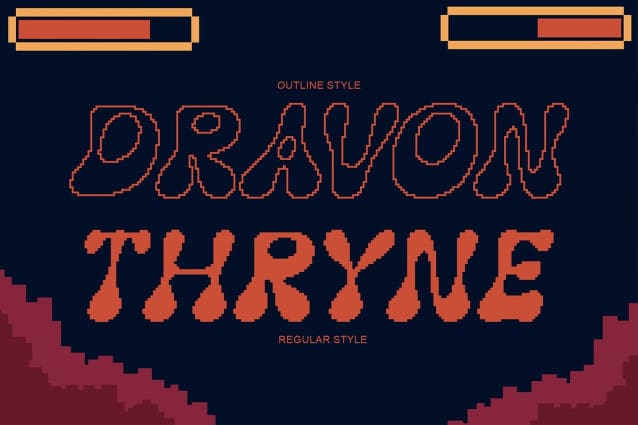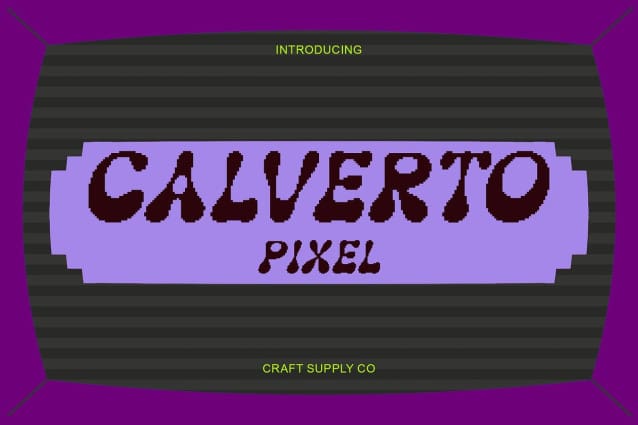
Calverto Pixel Font
Calverto Pixel Font – Pixel-Inspired Retro Display Font: Where Retro Tech Meets Creative Warmth.Blocky 90s Digital Shapes This is a retro display font built with bold, blocky letterforms that echo the digital style of the 90s. Its geometric construction captures the essence of old-school arcade screens and early computer graphics, making it a perfect choice for designs that want to embrace nostalgic energy.
Pixel Detailing for Modern Flair What makes this font unique is its pixel texture that blends past and present. While its form recalls retro aesthetics, the pixel effect adds a contemporary edge. This combination creates a versatile design tool that works for both vintage-inspired projects and modern digital visuals.
Retro Tech Vibes with Personality This font radiates the charm of retro technology while adding playful creativity. Its blocky shapes and structured rhythm bring back the warmth of classic gaming and digital culture. At the same time, its expressive style makes it stand out as more than just a throwback it becomes a design element full of character and vibrancy.
Perfect for Posters, Games, and Branding From gaming titles to eye-catching posters and bold branding projects, this font shines in display applications. Whether for a playful brand identity, a creative campaign, or a game project, this font ensures your design speaks with confidence and style.